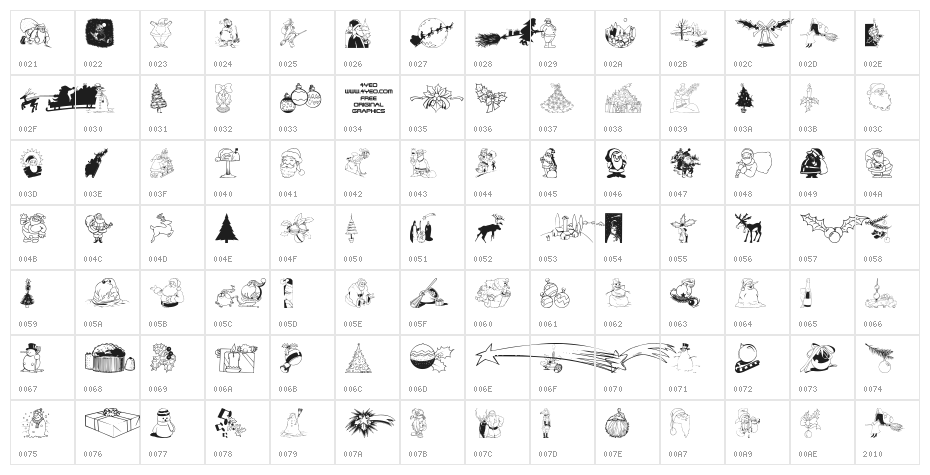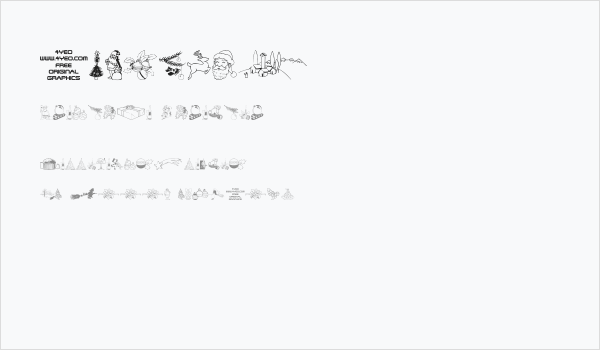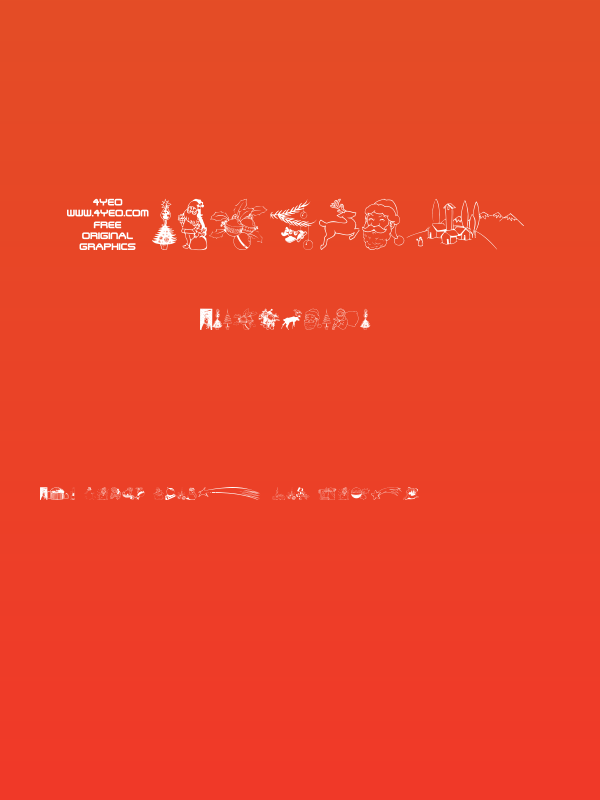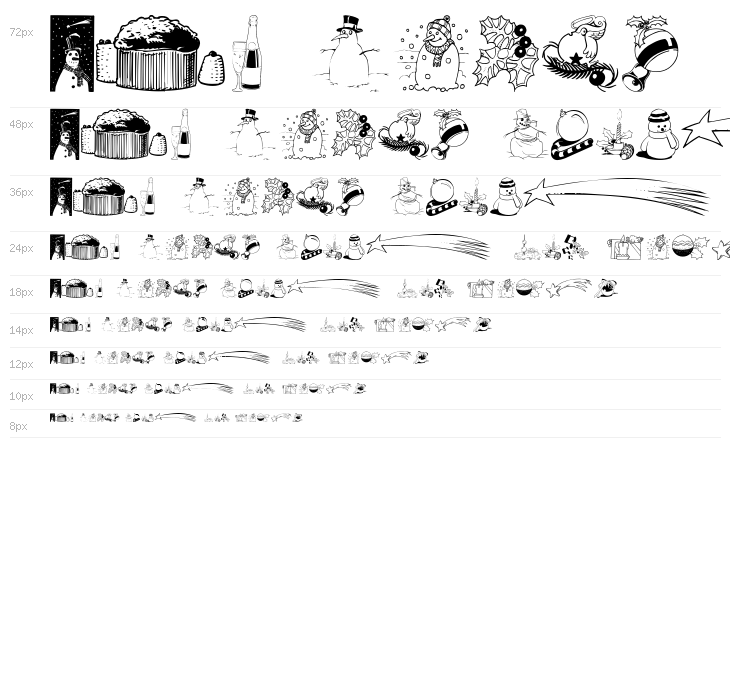
4YEOXMAS Font
4YEOXMAS Description
A collection of hand-drawn, black and white Christmas and holiday-themed illustrations, including Santa Claus, reindeer, Christmas trees, ornaments, gifts, and festive scenes. The images are detailed line art with a whimsical and playful style, suitable for decorative purposes.
| Overall Style | Decorative, Whimsical, Festive |
| Use Case | Decorative elements, Themed graphics, Holiday designs |
| Proposed Projects | Holiday cards, festive invitations, seasonal posters, gift tags, scrapbooking, digital stickers. |